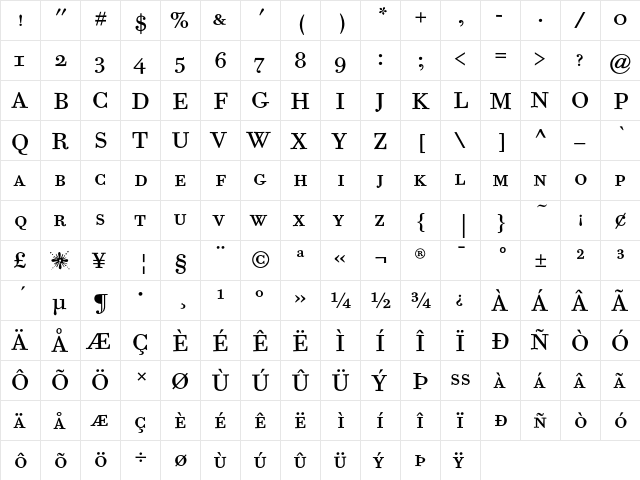
BodoniSixEF BookSC
Design Context for BodoniSixEF Typeface
BodoniSixEF is a composed and adaptable typeface that performs quietly and consistently across a wide range of design contexts.
Pro Tip: Pair BodoniSixEF with a font of contrasting weight or personality to build a more expressive typographic hierarchy.